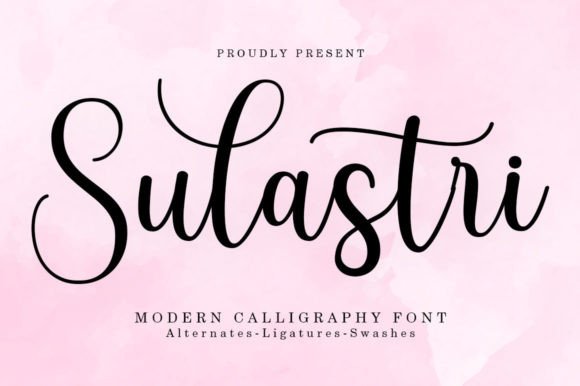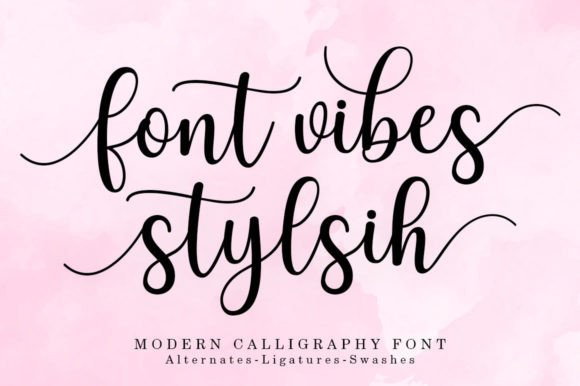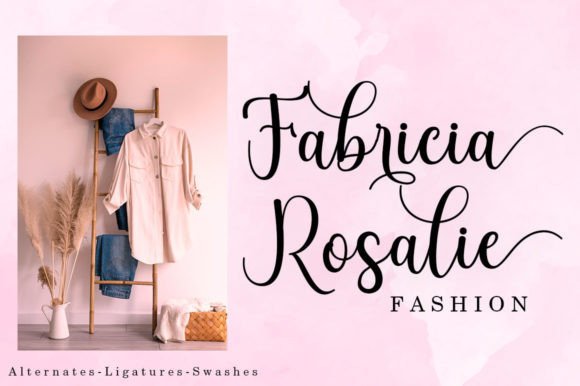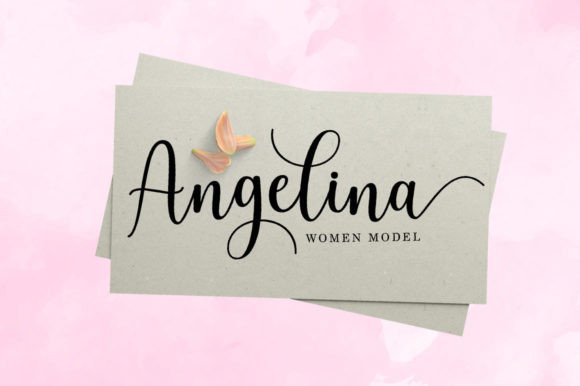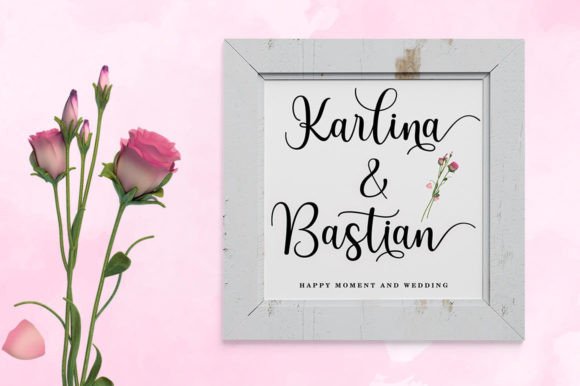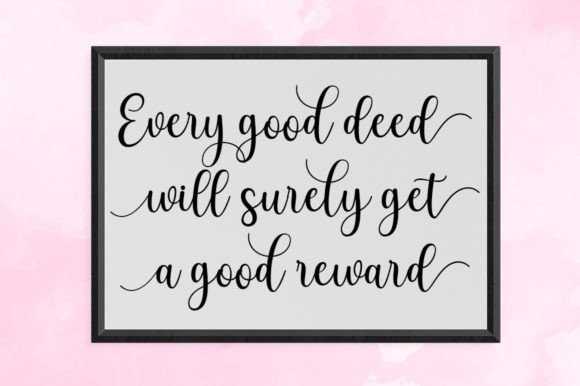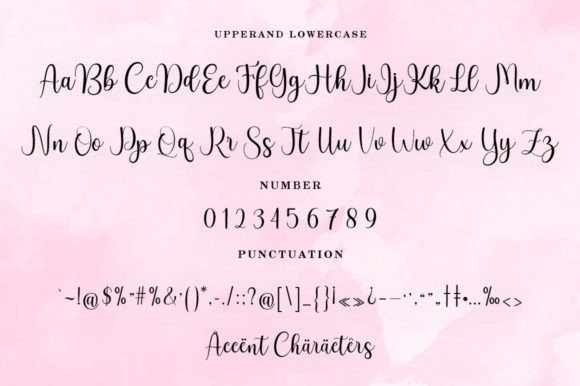
Sulastri  Font
Sulastri Font
Sulastri Script is a modern calligraphy design, including Regular. This font is casual and pretty with a swash. It can be used for various purposes. such as logos, product packaging, wedding invitations, branding, headlines, signage, labels, signatures, book covers, posters, quotes, and many more.